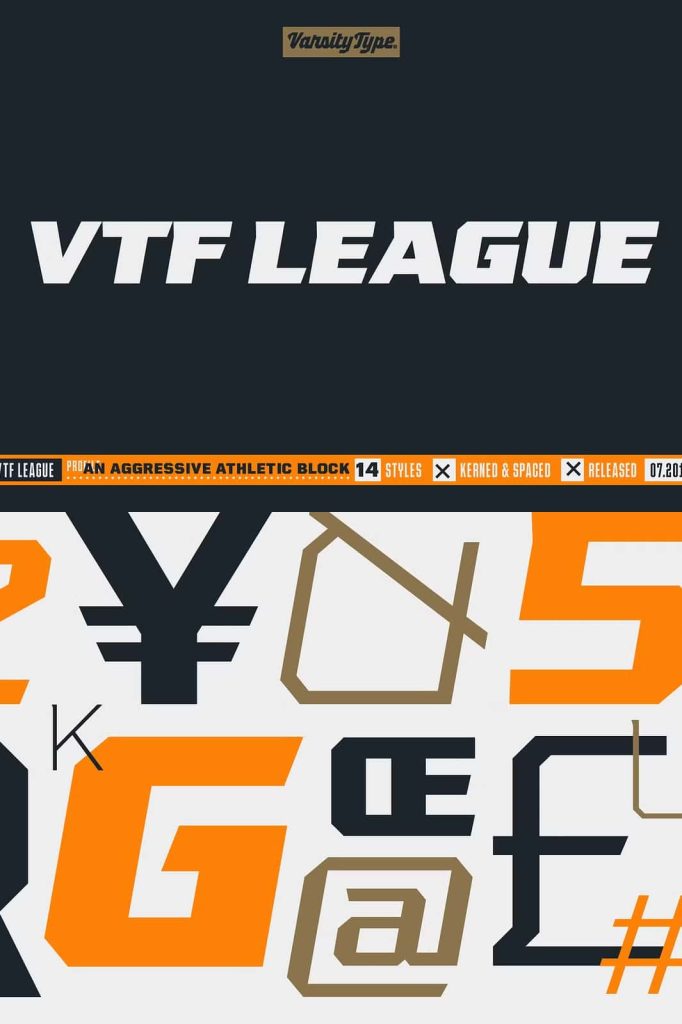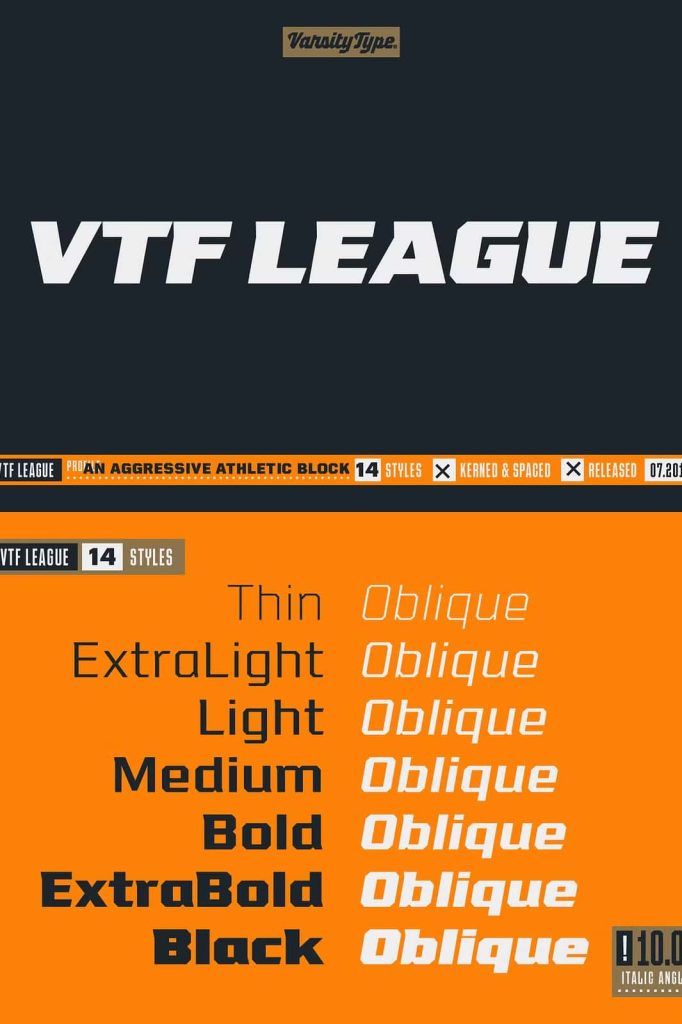
VT League Athletic Display Font Family for Sports Branding and Bold Typography
VT League is a powerful athletic display font family designed for creators who demand bold typography with exceptional versatility. Built as a comprehensive collection of 14 professionally crafted fonts, VT League combines strong industrial influences with modern athletic styling to produce a typeface that commands attention in every application. Featuring seven carefully balanced weights and matching oblique styles, this font family provides designers with the flexibility to build dynamic branding systems while maintaining visual consistency across every project.
Originally developed for sports branding and performance-focused design, VT League extends far beyond the world of athletics. Its bold block letterforms, confident proportions, and carefully chiseled terminals make it equally effective for apparel, product packaging, editorial headlines, logos, promotional graphics, and corporate branding. Inspired by the rugged typography found throughout Eastern Tennessee during a week-long moonshine tour, VT League combines the durability of industrial lettering with the distinctive personality of handcrafted local branding, resulting in a font family that feels both timeless and contemporary.
A Complete Athletic Display Font Family
VT League offers far more than a single display font. This extensive collection includes 14 coordinated fonts, allowing designers to create sophisticated typography systems that adapt to a wide variety of creative applications. The family includes seven individual weights ranging from lighter styles to powerful heavyweight options, along with matching oblique versions that introduce energy and movement into every composition.
This comprehensive selection makes it easy to establish strong visual hierarchy while maintaining a unified brand identity. Whether you’re creating bold headlines, secondary titles, or supporting typography, VT League delivers outstanding consistency and professional quality across every weight and style.
Engineered for Sports and Performance Branding
Athletic branding requires typography that communicates confidence, determination, and competitive spirit. VT League was specifically developed to meet those demands by combining bold block construction with balanced proportions that remain highly legible at every size.
The heavy vertical strokes establish strength and stability, while the lighter horizontal elements introduce rhythm and visual balance. Together, these structural characteristics create typography that feels powerful without becoming overwhelming. The distinctive chiseled terminals further reinforce the competitive personality of the font, making it an ideal choice for sports organizations, fitness brands, esports teams, schools, and athletic apparel companies.
Key Features
- Professional 14-font athletic display family
- Includes 7 versatile font weights
- Matching oblique styles for every weight
- Complete uppercase, lowercase, and small caps
- Bold athletic block letterforms with industrial influence
- Distinctive chiseled terminals for added personality
- Excellent readability for large display typography
- Perfect for sports branding, logos, apparel, packaging, and editorial design
- Suitable for both print and digital media
Inspired by Industrial Heritage and Local Craftsmanship
One of the defining characteristics of VT League is the unique story behind its creation. While exploring the local distilleries of Eastern Tennessee during a moonshine tour, the designer discovered a fascinating blend of industrial typography and handcrafted branding. The sturdy lettering found on vintage distillery signage inspired a visual language that values durability, honesty, and unmistakable character.
Rather than copying traditional sports typography, VT League combines this industrial heritage with modern athletic design principles. The result is a typeface that feels authentic, hardworking, and distinctive, making it suitable for projects that demand originality as well as strength.
Expanded Character Set for Maximum Flexibility
The updated version of VT League significantly expands the creative possibilities available to designers. The font family includes complete uppercase and lowercase alphabets along with professionally designed small cap alternates, giving users greater control over typography across branding, editorial, and digital projects.
These additional character options allow designers to create more sophisticated layouts while preserving the bold visual identity that defines the family. Whether you’re designing logos, promotional materials, or long-form editorial content, VT League provides the flexibility needed to achieve professional results.
Create Powerful Logos and Brand Identities
Typography serves as the foundation of memorable branding, and VT League delivers the bold personality needed to establish strong visual identities. The athletic block construction immediately communicates confidence, reliability, and professionalism while remaining clean enough to adapt across multiple industries.
VT League performs exceptionally well for sports teams, universities, fitness centers, breweries, outdoor brands, automotive businesses, workwear companies, manufacturing firms, and lifestyle brands seeking a rugged yet modern appearance. The wide range of weights makes it easy to develop complete branding systems with consistent typography throughout every customer touchpoint.
Perfect for Apparel and Merchandise Design
Bold display typography is essential for apparel graphics, and VT League excels in clothing applications. Its strong construction translates beautifully onto T-shirts, hoodies, jerseys, hats, jackets, uniforms, and promotional merchandise. The athletic styling naturally complements sportswear while remaining versatile enough for fashion collections and streetwear branding.
The oblique styles introduce movement and energy into apparel graphics, making them especially effective for activewear collections and performance-oriented products.
Excellent for Editorial, Posters, and Advertising
Large-format typography demands fonts with exceptional visual impact, and VT League delivers impressive results in editorial headlines, magazine covers, event posters, advertising campaigns, signage, and promotional graphics. Its structured rhythm keeps large text readable while ensuring every headline captures immediate attention.
The combination of heavy verticals and balanced horizontals creates layouts that feel organized, modern, and highly professional across both print and digital media.
Versatile Across Print and Digital Projects
VT League adapts effortlessly to modern creative workflows. Use it confidently for websites, mobile applications, digital advertising, presentation slides, product packaging, printed brochures, stadium signage, social media graphics, banners, and corporate communications. Its clean engineering ensures consistent performance regardless of platform or output size.
Because the family includes multiple weights and oblique variants, designers can establish sophisticated typography systems that remain visually cohesive across every format and medium.
Why Choose VT League Athletic Display Font Family?
VT League combines the strength of athletic typography with the authenticity of industrial design to create a display font family that is both bold and remarkably versatile. Its collection of 14 professionally designed fonts, complete uppercase and lowercase character sets, small caps, seven weights, and matching oblique styles provides everything needed to build powerful branding systems and memorable visual identities.
Whether you’re designing sports branding, team logos, apparel collections, product packaging, editorial layouts, advertising campaigns, posters, or corporate identities, VT League delivers the confidence, flexibility, and craftsmanship required for professional creative work. If you’re searching for an athletic display font family that blends competitive energy with industrial character and modern versatility, VT League is an outstanding addition to any designer’s typography collection.